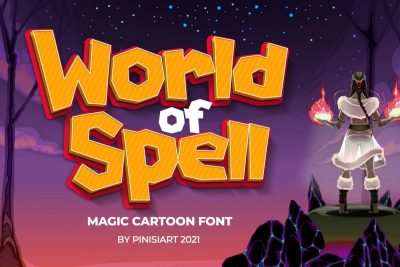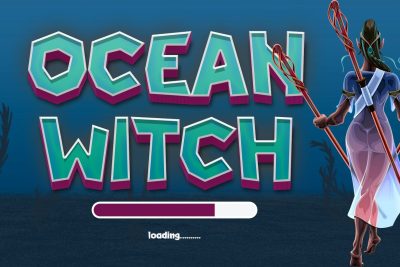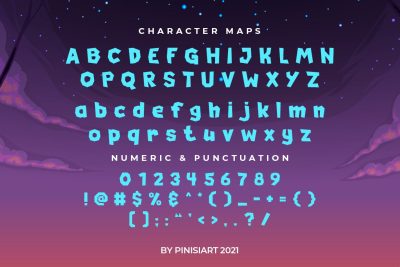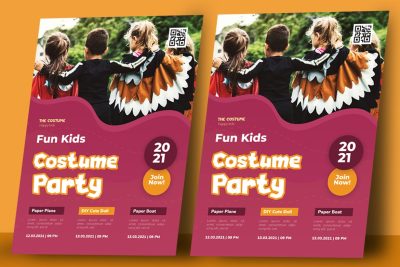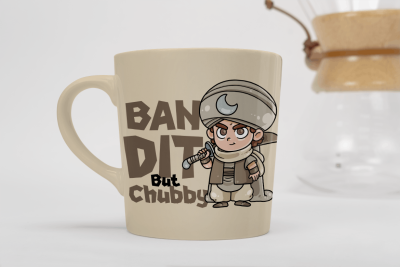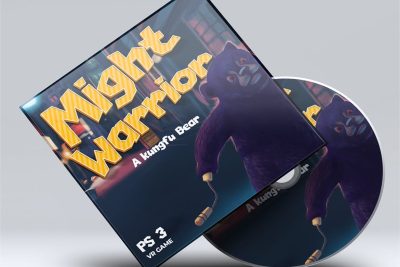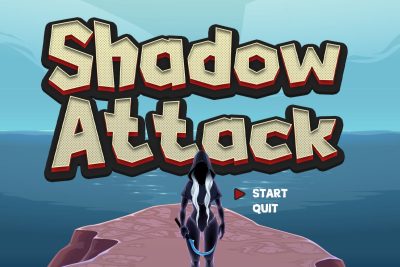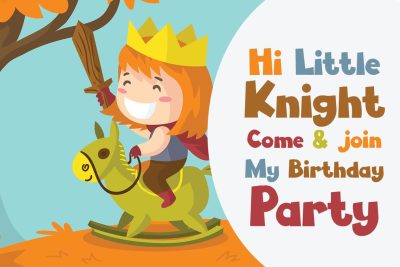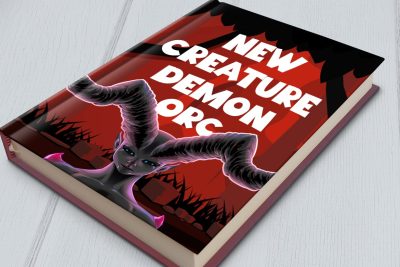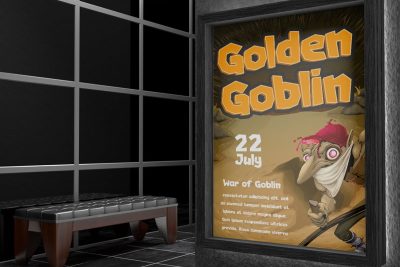
Gaming Font world of spell
World of Spell
Gaming Font World of Spell is a dynamic typeface designed to capture the magic and fantasy essence. Its bold, playful letters and 3D styling make it ideal for gaming interfaces, event posters, and imaginative branding. This font’s whimsical appeal instantly transports viewers into a world of adventure. As a result, it’s a versatile choice for creative projects that demand attention.
Perfect for designs targeting gamers, children, or fantasy enthusiasts, World of Spell combines charm with practicality. The bold outlines and slightly irregular letterforms evoke the mystical feel of spellcasting and wizardry. Moreover, its excellent readability ensures your message stands out clearly across print and digital mediums.
Magical Appeal for Diverse Design Needs
Gaming Font World of Spell is visually stunning and highly functional. Its bold strokes and intricate details create a captivating effect, especially with vibrant or mystical backdrops. For instance, the font shines in game logos, storytelling graphics, and event invitations. Its versatility also makes it perfect for merchandise designs or educational materials with a magical theme.
The playful nature of this typeface appeals to a broad audience, from young gamers to fantasy fans. Its design combines fun and sophistication seamlessly. Whether crafting a captivating mobile game interface or promotional materials for a wizard-themed event, World of Spell delivers enchantment.
Additionally, this font’s ability to adapt to different styles makes it a must-have for creative professionals. It pairs well with other fonts to create layered designs, offering countless possibilities for innovation. For game developers, the font’s unique features enhance user interfaces, making gameplay visually engaging and immersive.
Bring Your Designs to Life with Gaming Font World of Spell
Gaming Font World of Spell elevates creative projects with its lively, fantasy-inspired style. It sparks imagination and adds personality to your designs. Furthermore, its versatility ensures it fits a variety of contexts, from promotional posters to immersive gaming experiences.
If you seek a font that combines magic, charm, and practicality, World of Spell is your ultimate choice. Whether working on fantasy projects or playful designs, this typeface ensures your creations leave a lasting impression.
It is full of magic, the world of imagination and creation where children are the group that stands at the top.